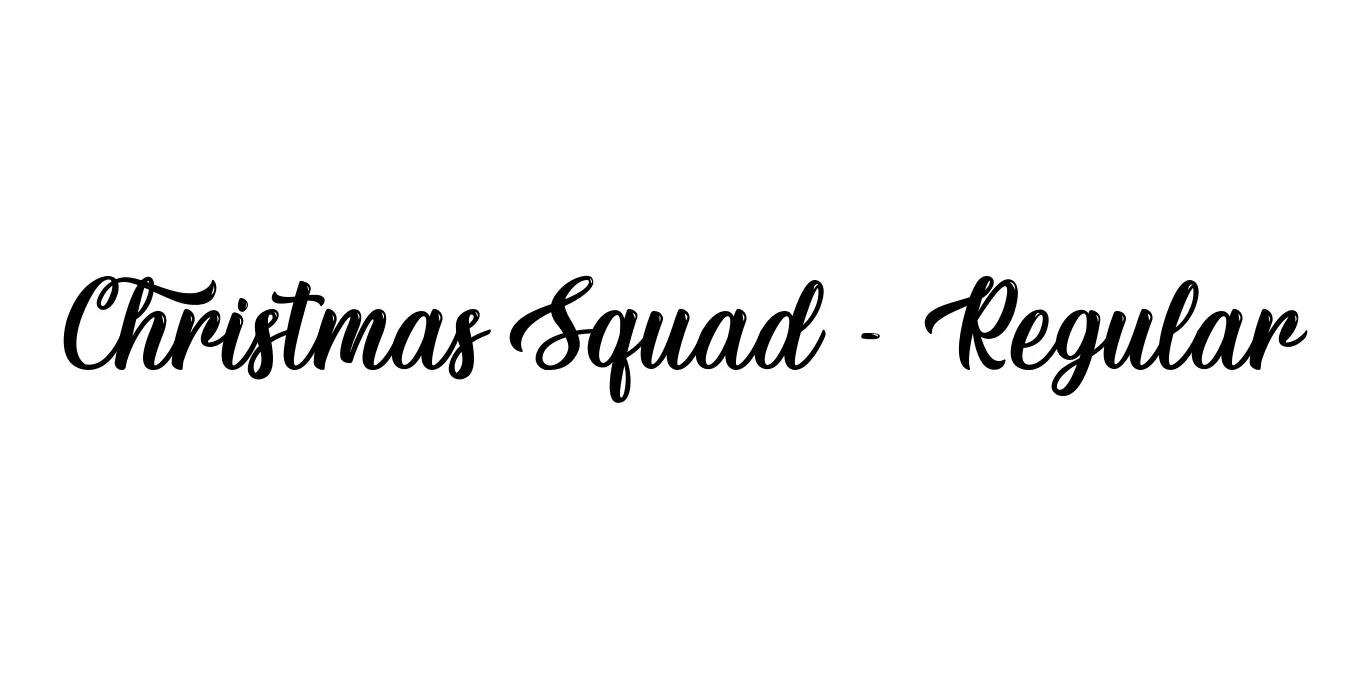
Christmas Squad - Regular
Designed by Vunira Design
| Category | Script / Decorative |
| Designer | Vunira Design |
Christmas Squad - Regular is a whimsical and charming brush script font designed specifically to encapsulate the joy and warmth of the holiday season. With its rhythmic flow and hand-lettered aesthetic, this typeface brings a sense of authenticity and cheer to any creative project. The font features smooth, bouncy characters that mimic natural handwriting, making it an ideal choice for projects that require a personal, festive touch.
This font excels in high-visibility applications, particularly for seasonal branding, holiday event invitations, and decorative gift tags. Its versatile nature allows it to be paired beautifully with simple sans-serif fonts to create a balanced layout. Whether you are designing digital graphics for social media or physical merchandise like Christmas sweaters, Christmas Squad - Regular adds a professional yet playful festive flair that resonates with audiences of all ages.
Christmas Squad - Regular Best Uses
Perfect for heartfelt holiday-themed messages and invitations.
Great for eye-catching festive posts and seasonal promotions.
Ideal for Christmas-themed apparel, mugs, and gift items.
Excellent for seasonal logos and product packaging.